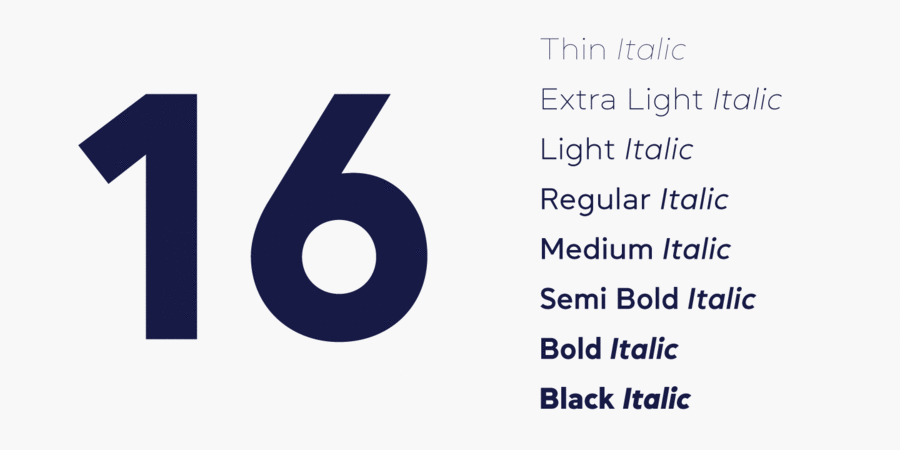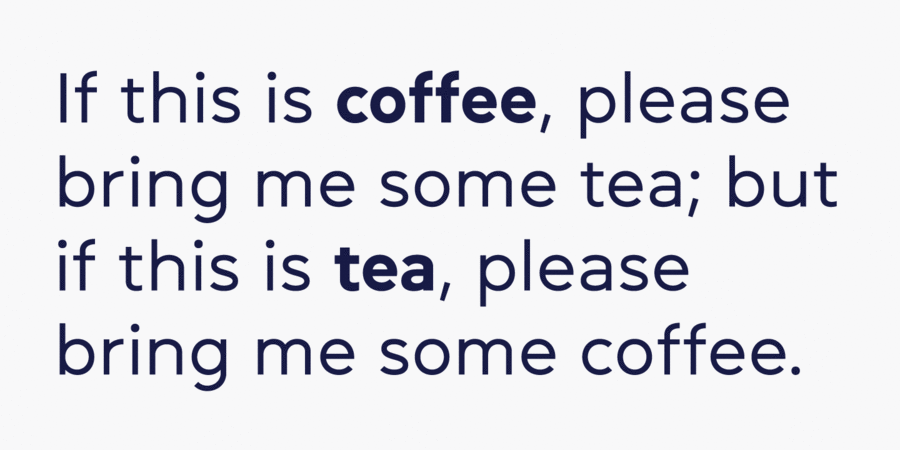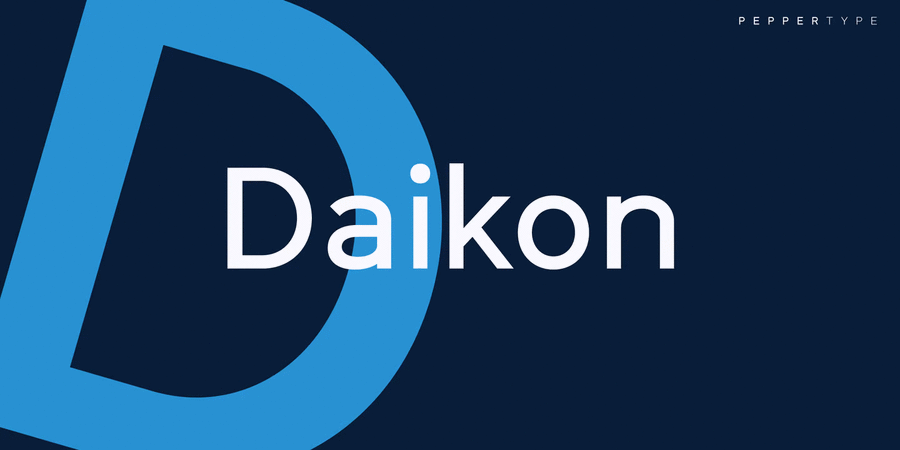
Daikon is a semi-open geometric grotesque featuring rich language support including Cyrillic, various OpenType features and multiple sets of figures. This family’s clean and legible feel makes it useable as both display and body type in any font size. The typeface was designed by Oleh Lishchuk in 2020.
Daikon supports 83 languagesUkrainian, English, German, Polish, Portuguese, Spanish, French, Russian, Czech, Dutch, Italian, Swedish, Turkish, Finnish, Belarusian, Serbian, Bulgarian, Estonian, Lithuanian, Albanian, Afrikaans, Basque, Breton, Valencian, Galician, Gaelic (Scottish), Danish, Indonesian, Irish, Icelandic (Win), Karakalpak, Catalan, Norwegian, Occitan, Rhaeto-Romance, Sami Lule, Tswansky, Uzbek (Lat.), Faroese, Frisian, Chamorro, Estonian (Win), South Sami, Albanian (Win), Hungarian, Upper leprechauny, Karelian, Latvian (Mac), Lithuanian (Mac), Maori (Mac), Moldovan (Lat.), Lower Sorbian, Romanian (Win), Slovak, Slovenian, Turkmen (Lat.), Croatian (Win), Estonian (Mac), Kurdish, Latvian, Maori, Romanian, Abazin, Avar, Agul, Adyghe, Darginsky, Ingush, Kabardino-Circassian, Kabardian, Karachay-Balkar, Kumyk, Lak, Lezghian, Macedonian, Mordovian-Moksha, Mordovian-Erzya, Nogai, Rutulian, Tabasaran, Tatar, Tsakhur, Chechen Functions of font family DaikonTypeface use in layout:
Associations for font family DaikonTypeface personality and character:
minimalistic, crisp, delicate, clean, easy, chilly, fresh, fashionable, thin, modern, laconic, clear, flat, high-quality, weightless, transparent, logical, accurate, air, glass, sharp, wire, urban, static, globalized, globalistic, fragile, cold, simple, solid, available, elementary, correct, strict, serious, stable, independent, responsible, west, business, calm, schematic, engineering, neutral, moderate, standard, inexpressive, universal, clever, indifferent, comfortable, low key, significant, mandatory, reputable, strong, heavy, convincing, important, urbanistic, motivating, reliable, iron, steel, rude, self-assured, powerful, urgent, persistent, loud, durable, manly, cutting, workman, industrial, severe, technical, formidable, splashy, notable, dense, active, bright, machine, technogenic, tough, ambitious
perfumery, Eau de Toilette, shampoo, cosmetics, fashion, innovations, diet, design, hygiene, purity, city, device, society, airport, Metro, navigation, architecture, science, clothes, advertising, store, medicine, footwear, scheme, engineer, mathematics, water, transport, medicines, business, retail, constructor, money, bank note, coworking, education, equipment, x-ray, coin, tool, machine tool, urban studies, fuel, energy industry, Toothpaste, steel-maker, news, bus, motor, engine, technology, logistics, pharmacy, truck, trucker, industry, building, mechanical engineering, security, fitness equipment, power station, factory, brick, port, safe, repairs, protection, construction, excavator, workman Typeface exhibits stylistic traits: